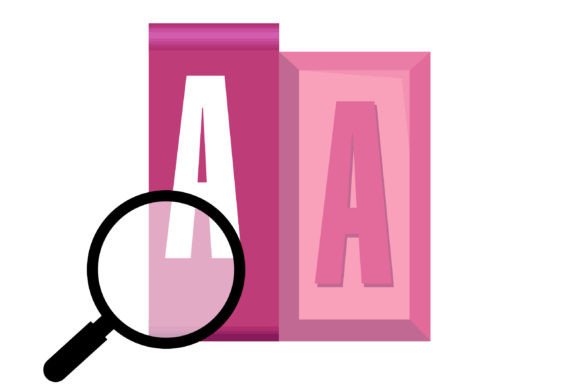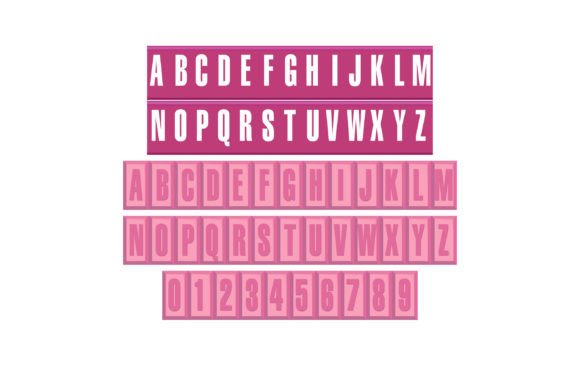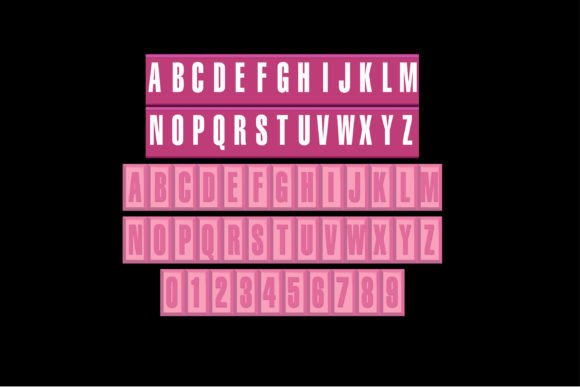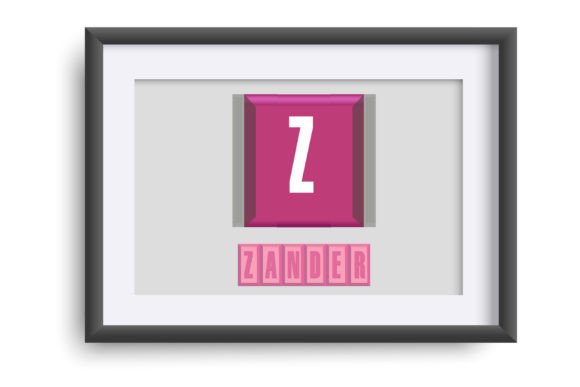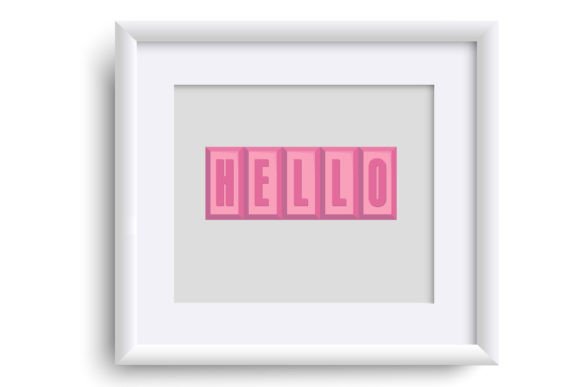
Introduction to Pink Chocolate Font
This full-color font features an uppercase of the outside wrapper of a candy bar.
Use greater than and less than brackets for a candy bar โendsโ The lowercase is the chocolatey inside of the candy bar.
Key Features of Pink Chocolate Font